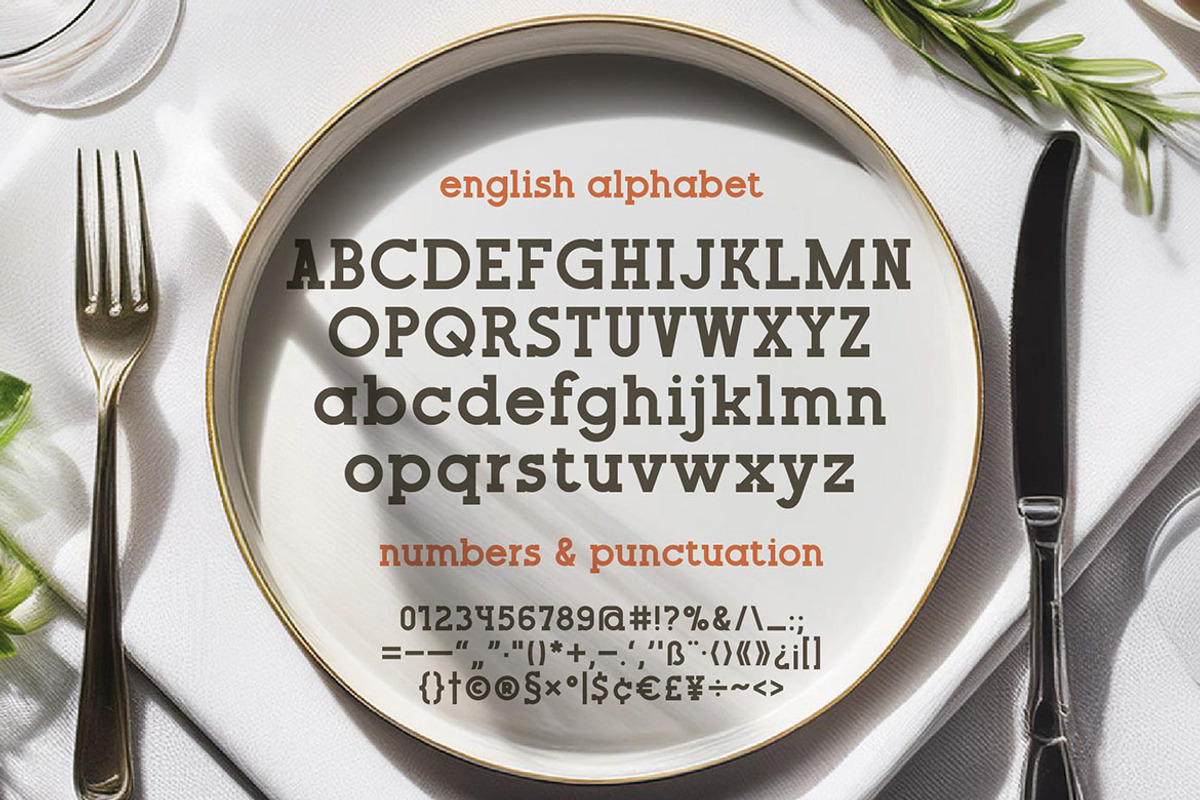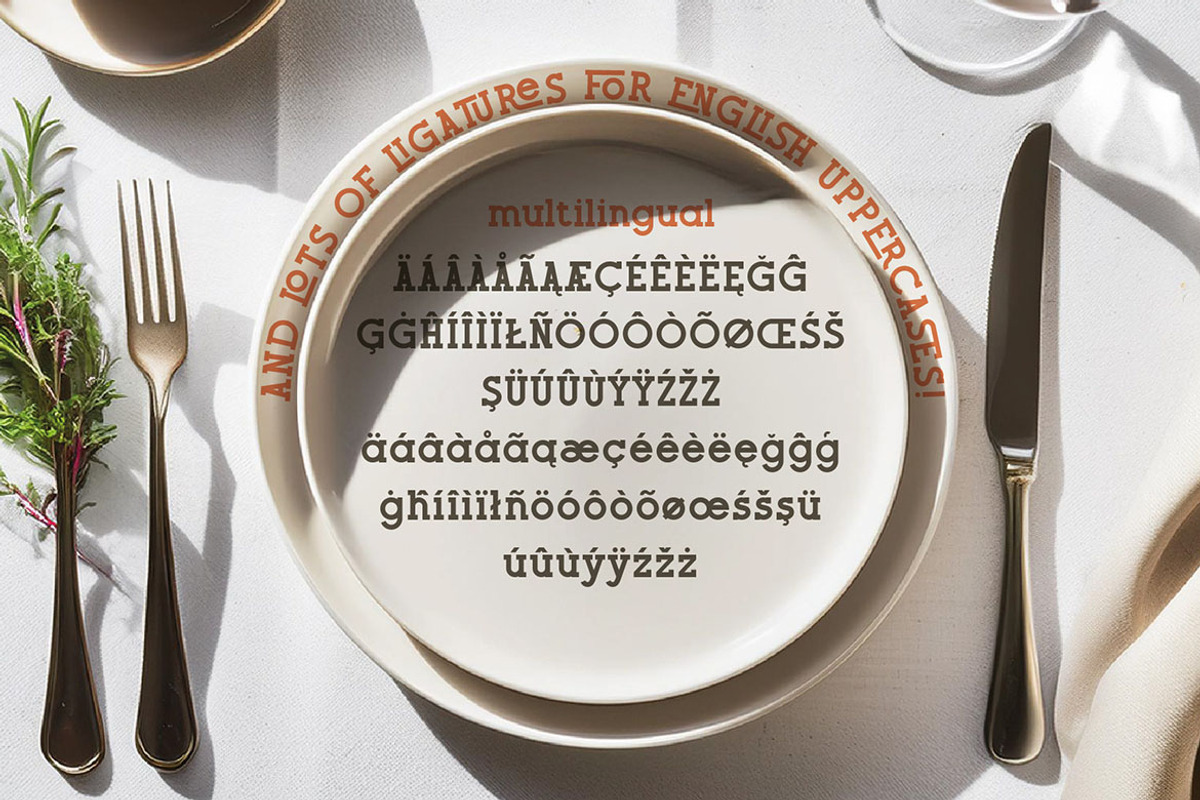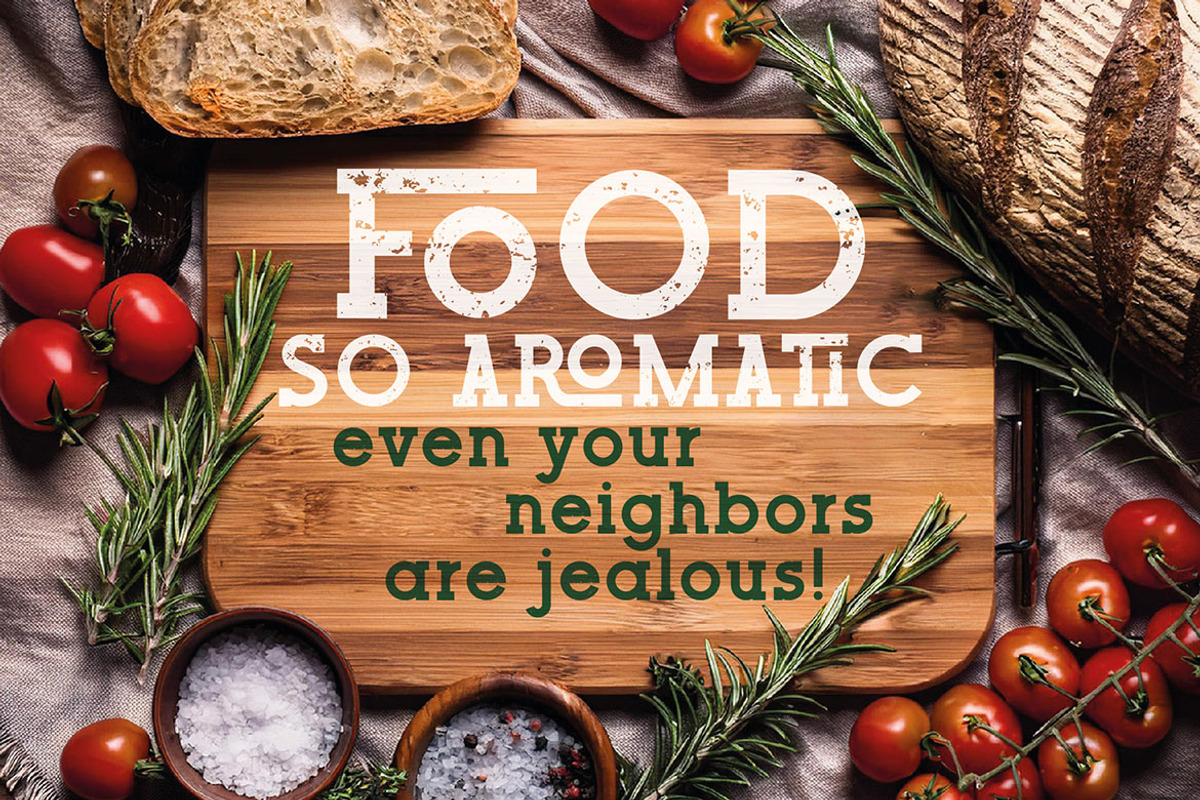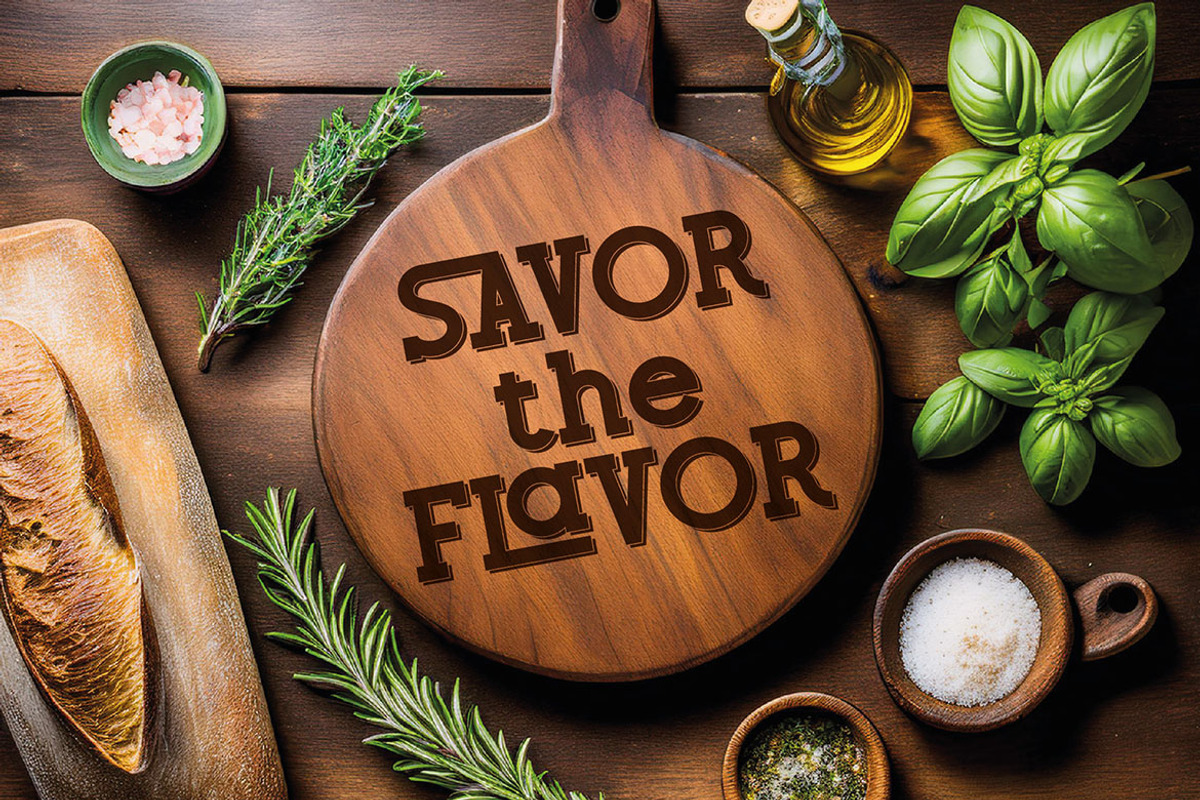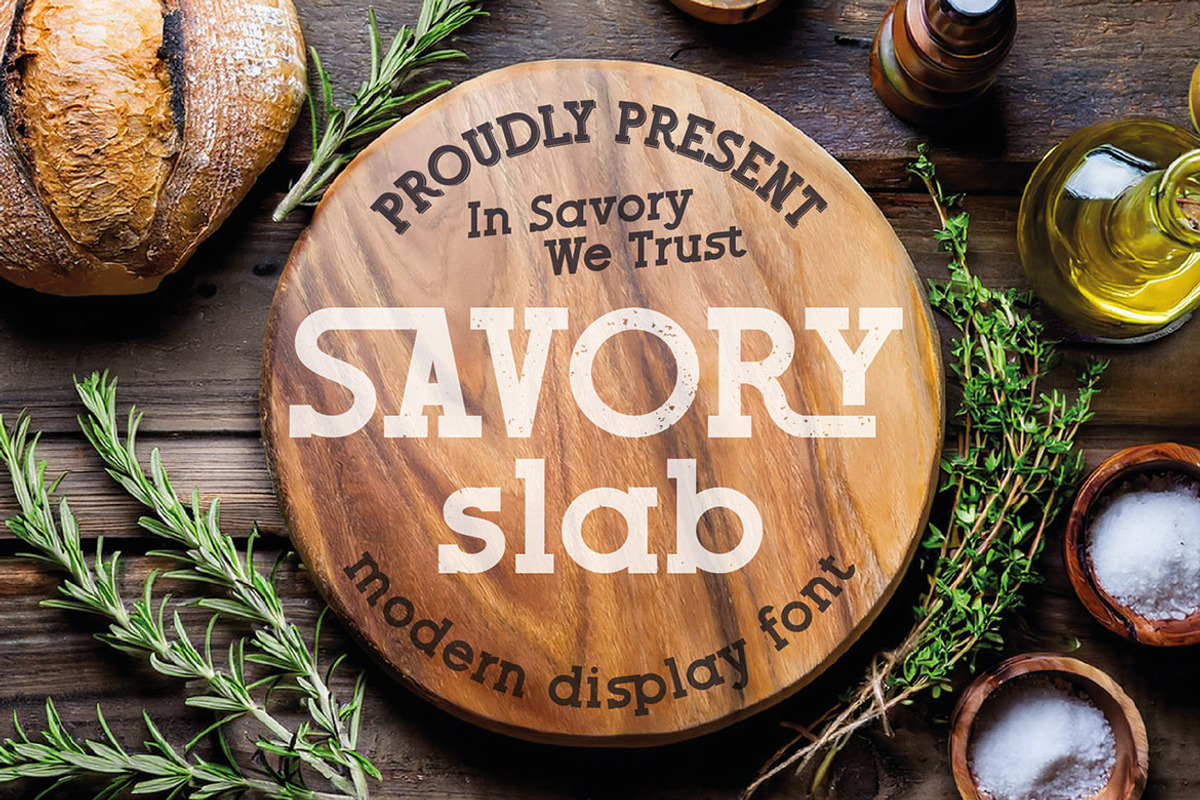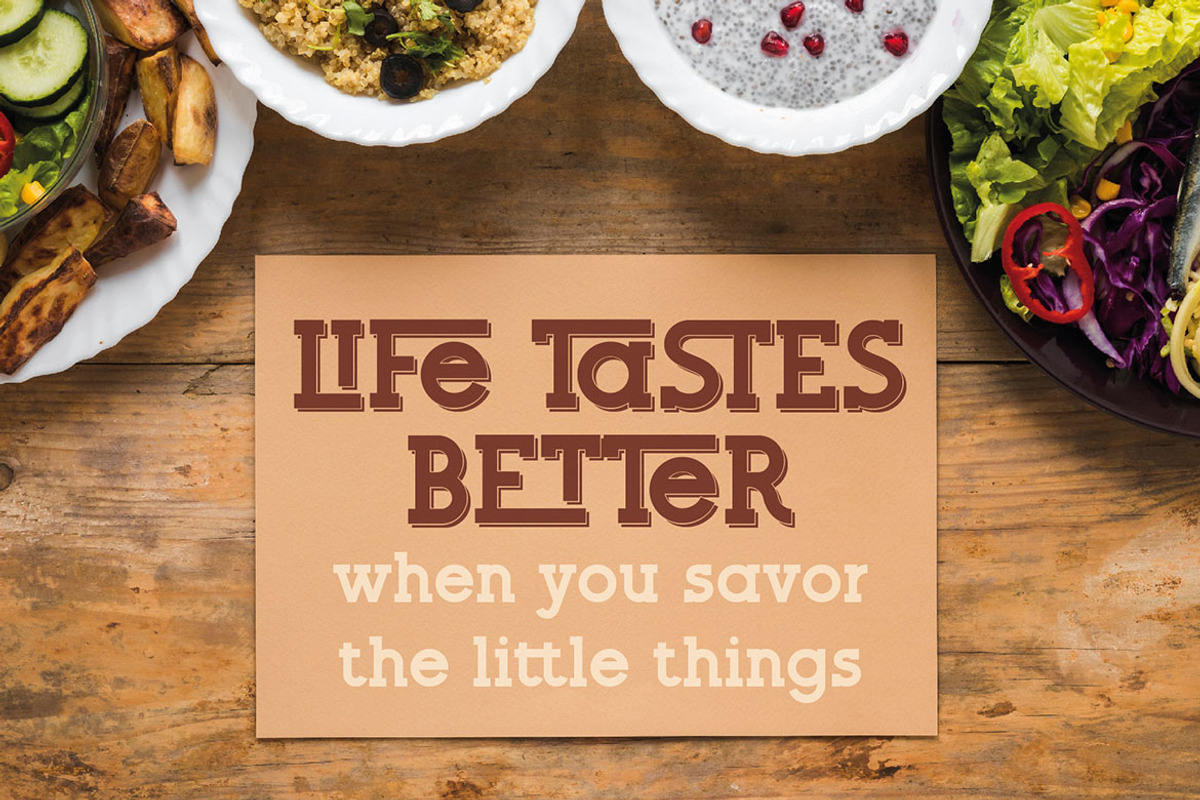
Savory Slab Serif
Unique, retro, textured, sharp, classy & label slab serif font. Comes with multilingual support & lot of ligatures and some alternate characters + shadow & textured font versions - great for your new logo, monogram or branding project.
- 3 font versions - regular, shadow & textured
- Multilingual support & lot of ligatures
- Great for your new logo, monogram or branding project